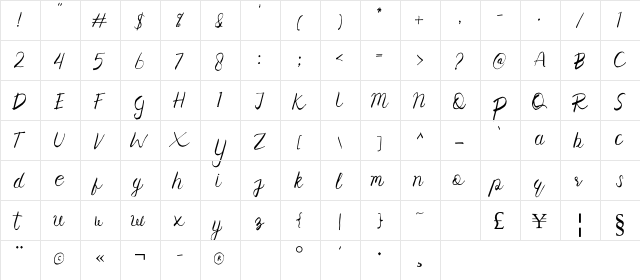
Corollo Regular
Design Context for Corollo Typeface
Corollo is a composed and adaptable typeface that performs quietly and consistently across a wide range of design contexts.